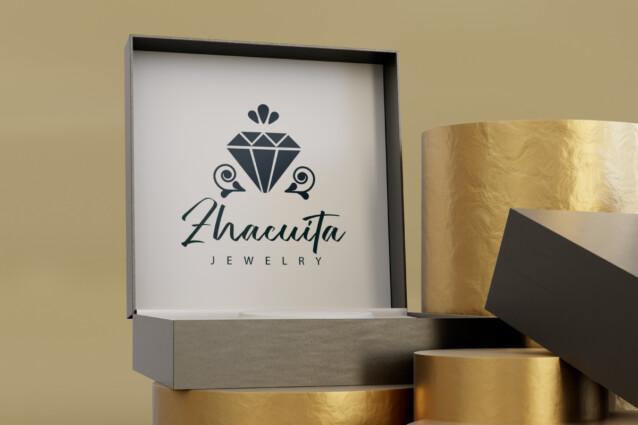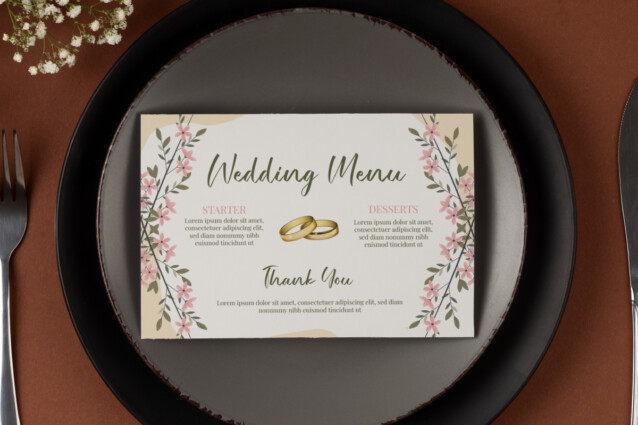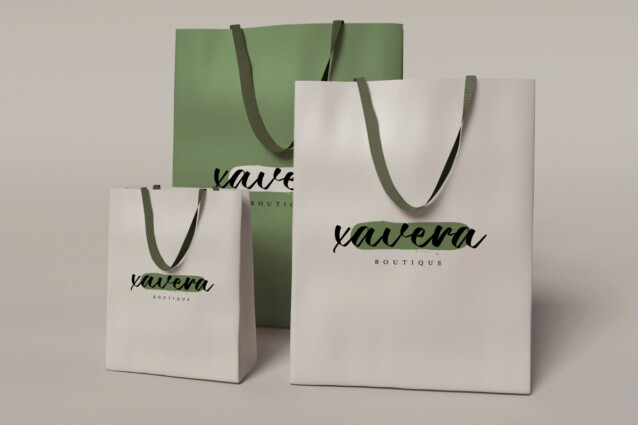
Until Sometime Font
Until Sometime Font is a stunning and stylish small brush writing script font by VinType Studio. This handwritten style font looks natural with a size that expands to the side and still looks neat and easy to read. This font will be suitable for many industries, such as advertisement, beauty product, event or wedding organizer, fashion, florist, handicrafts, homeware, printing, publishing, spa and salon, and more!
Until Sometime Font includes full set of Uppercase and Lowercase Basic Characters, Numerals and Punctuation. The aura of font will catch your eye and beg to be incorporated into the design immediately, such as brand logo, brochure, business card, custom design, frame art, label, packaging design, poster, quote, screen printing, stationery, website, etc.